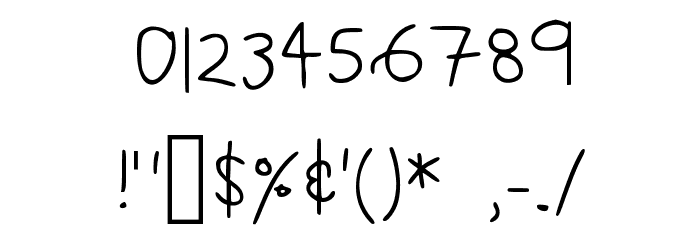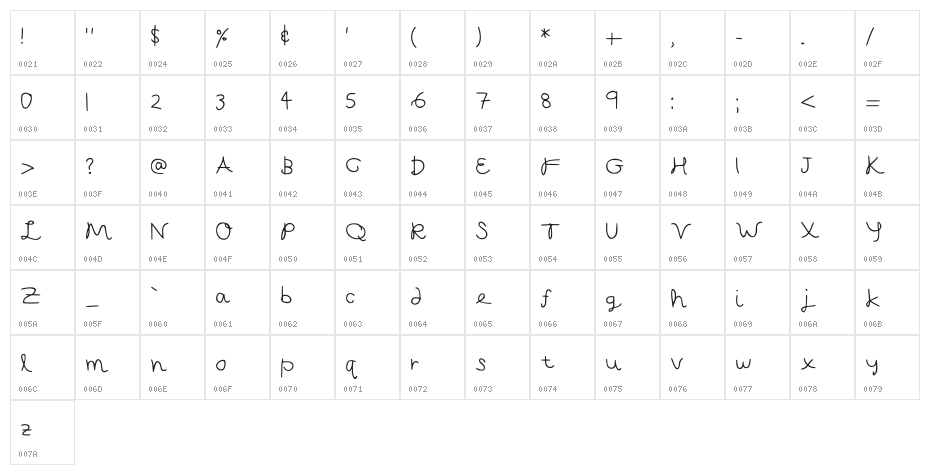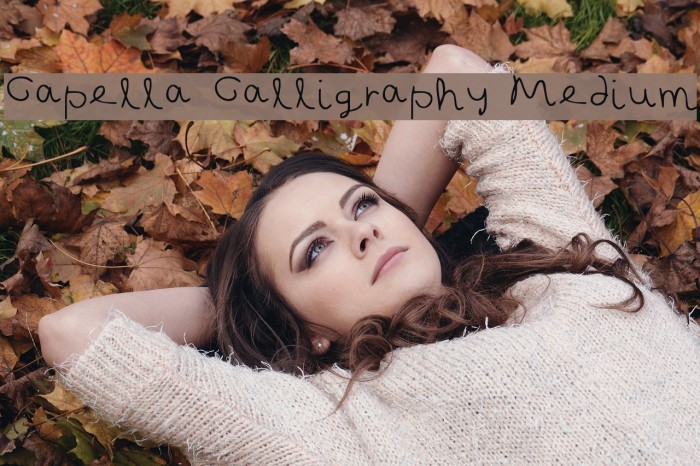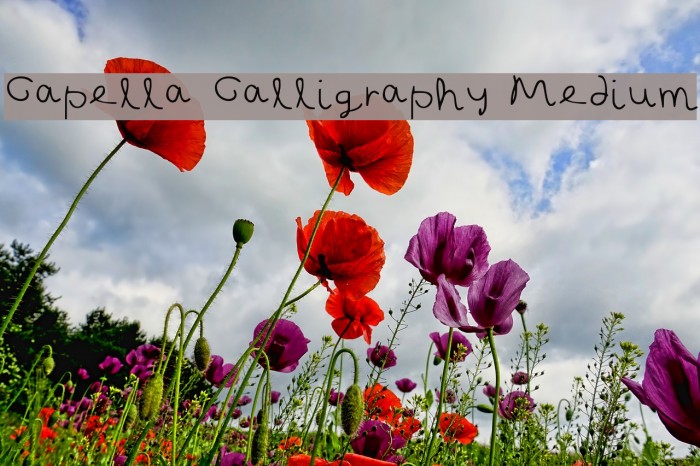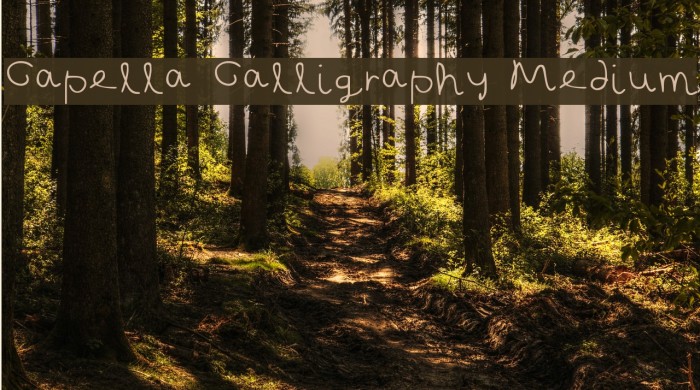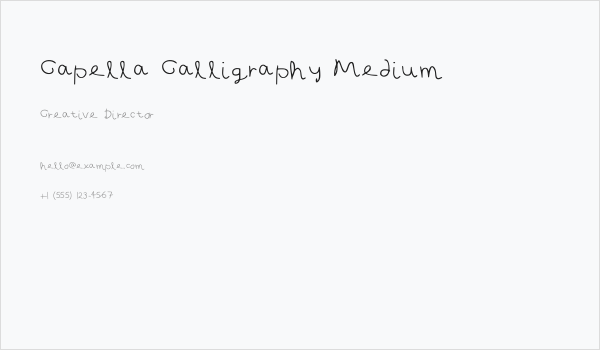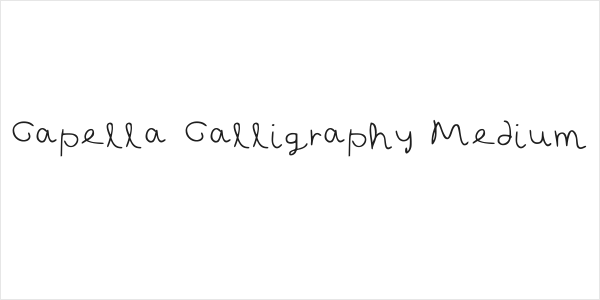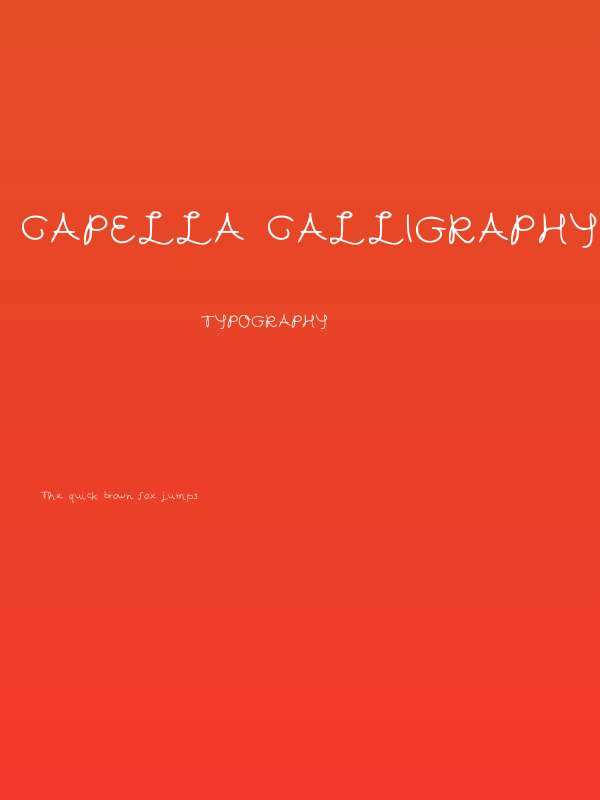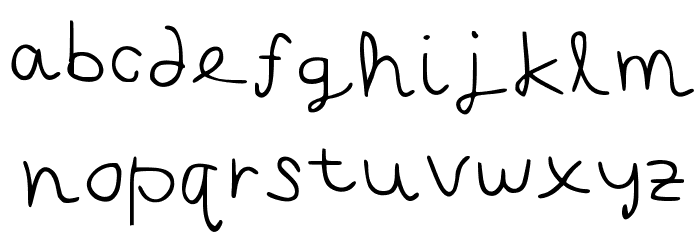
Capella Calligraphy Medium Font
Capella Calligraphy Medium Description
This font embodies a playful and whimsical calligraphy style, characterized by its flowing and smooth curves. The letters are crafted with a sense of movement, giving an impression of handwritten elegance. Each character is distinct, with a slightly uneven baseline that adds to its charm. The uppercase letters are bold and expressive, while the lowercase letters maintain a consistent flow. Numbers and special characters are designed to complement the overall style, ensuring a cohesive look. This font is perfect for projects that require a personal touch, such as invitations, greeting cards, or creative branding.
| Proposed Projects | Ideal for invitations, greeting cards, personal branding, and creative projects. |